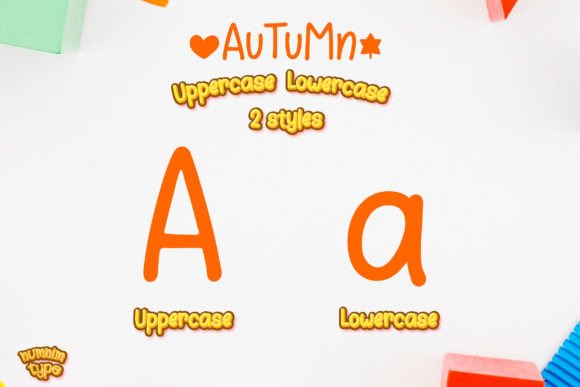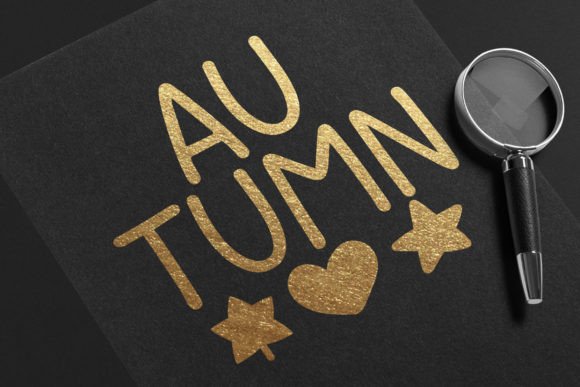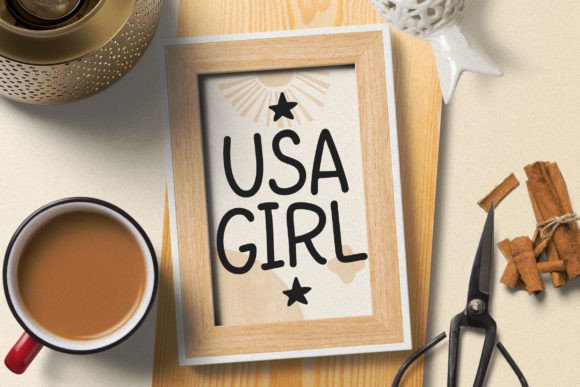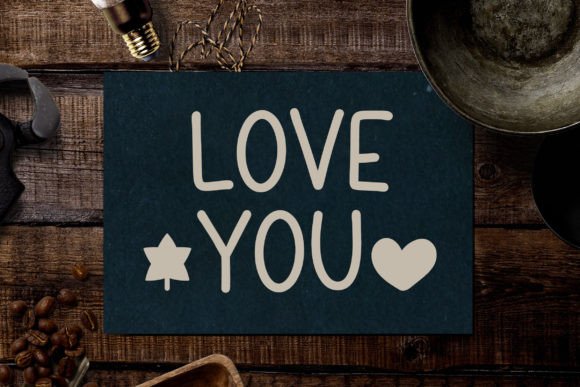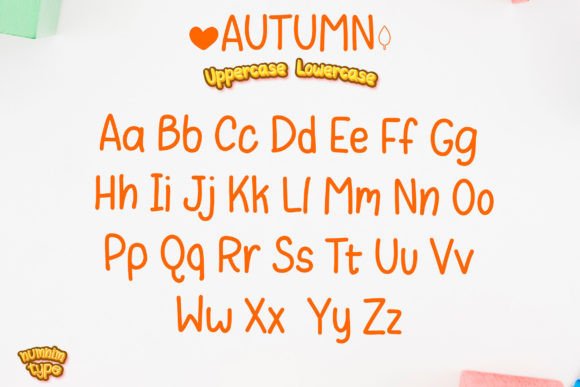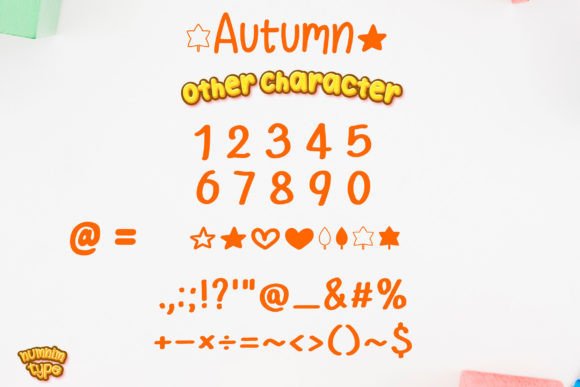
Introducing Autumn Font: The Perfect Addition to Your Design Collection
Are you a designer or crafter looking for a unique and playful font to add to your collection? Look no further than Autumn Font! This cute and uniquely crafted display font is perfect for a variety of design projects, from stickers and mugs to t-shirts and ornaments.
What Makes Autumn Font So Special?
Autumn Font is a fun and playful font that is sure to capture the attention of your audience. Its unique and hand-crafted characters make it stand out from more traditional fonts, and its playful vibe makes it perfect for designs that require a bit of whimsy. Whether you’re creating a design for a Fall event, a holiday gift, or just something to brighten up a friend’s day, Autumn Font is the perfect choice.
PUA Encoding: What Does it Mean?
One of the best things about Autumn Font is that it is PUA (Private Use Area) encoded. But what does that mean, exactly? PUA encoding allows designers to access all of the glyphs and swashes in the font with ease. This means that you can easily add flourishes and other decorative elements to your designs, taking them to the next level. With PUA encoding, you don’t have to worry about complicated coding or tedious workarounds – just access the glyphs and swashes you need and get creative!
So, what can you use Autumn Font for? The possibilities are endless! Here are just a few ideas to get you started:
- Stickers: Add a playful touch to your stickers with Autumn Font. Perfect for Fall-themed stickers, Halloween decorations, or just for fun.
- Mugs: Create a one-of-a-kind mug design with Autumn Font. Perfect for a Fall-themed gift or a fun addition to your own coffee mug collection.
- T-shirts: Take your t-shirt designs to the next level with Autumn Font. Perfect for Fall-themed shirts, holiday gifts, or just for fun.
- Ornaments: Add a personal touch to your ornaments with Autumn Font. Perfect for Fall-themed decorations, holiday gifts, or just for fun.
- Fall Event Cards: Create beautiful and unique Fall event cards with Autumn Font. Perfect for invitations, thank-you cards, or just to send a little seasonal cheer.
Why Choose Autumn Font?
So, why choose Autumn Font for your design projects? Here are just a few reasons:
- Unique and Playful: Autumn Font is a one-of-a-kind font that adds a playful touch to any design.
- Easy to Use: With PUA encoding, accessing glyphs and swashes is easy – no complicated coding or workarounds required.
- Versatile: Perfect for a variety of design projects, from stickers and mugs to t-shirts and ornaments.
- High-Quality: Autumn Font is a high-quality font that is sure to impress.
Get Creative with Autumn Font!
In conclusion, Autumn Font is a must-have for any designer or crafter looking to add a playful touch to their designs. With its unique and hand-crafted characters, PUA encoding, and versatility, it’s the perfect font for a variety of design projects. Whether you’re creating stickers, mugs, t-shirts, ornaments, or Fall event cards, Autumn Font is sure to impress. So why wait? Download Autumn Font today and start creating your own unique designs!